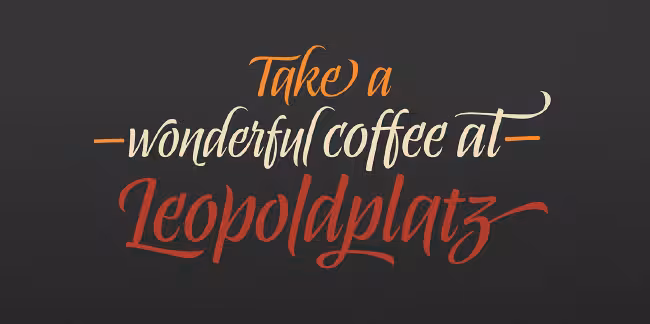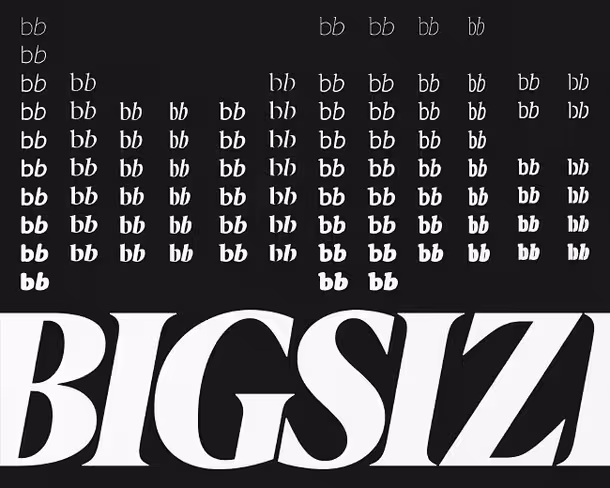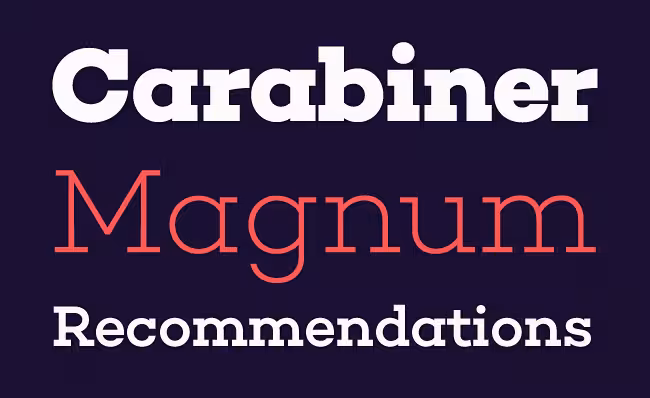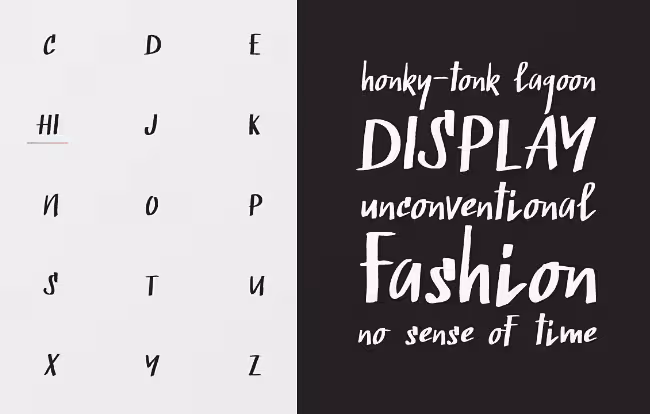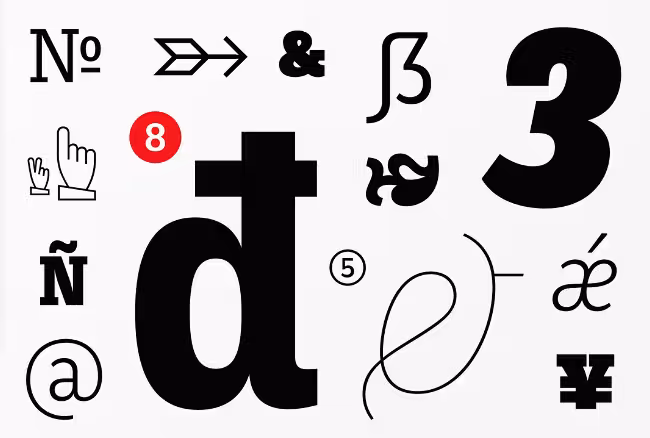
The most beautiful typefaces from June 2014
As another month comes to an end, here’s a look back at all the beautiful typefaces released during the month of June. Check them out below!
Rene Bieder: Choplin
Choplin is a modern and clear geometric slab serif with a sturdy heart.
TipoType: Libertad
Libertad is a sans serif that mixes humanist and grotesk models.
Webalys: Streamline Icons
Streamline Icons have been designed on a precise grid, to guarantee consistency and crisp display.
Mika Melvas: Sanelma
Sanelma is a brush script inspired by hot rod lettering and sign painting.
Nikola Giacintova: Rukola
Rukola is a friendly brush script that follows in the footsteps of sign painting.
Avondale Type Co: ATC Timberline
ATC Timberline is a wide display font, evoking the high class side of speed and mechanics.
Sudtipos: Abelina
Abelina can be used in display sizes for titles where part of the central premise is to emulate certain features of gestural handwriting.
Hoefler & Co: Nitro & Turbo
Nitro is an aggressively sloped italic of massive weight – with an equal and opposite form, a back-slanted style called Turbo.
Kyle Wayne Benson: Good News Sans
Good News Sans consists of 18 fonts with six weights and three widths to complement any of your printing needs.
Petra Docekalova: Monolina
Monolina is a contemporary monolinear script that is based on the contrast between classical calligraphy and quickly jotted manuscript.
Playtype: Berlingske
Sleek and impressively consistent design lies in every single letter.
The Northern Block: Finlek
Finlek is a handmade typeface with subtle script characteristics.
Monotype: Quire Sans
Quire Sans is highly functional and sexy at the same time.
House Industries: Yorklyn Stencil
Robust curves and deceptively delicate breaks.
FontFont: FF Franziska
FF Franziska – discreet, functional and modern, but with real personality.
Matthew Butterick: Triplicate
A monospaced family with true italics, small caps and other geekery.
Hamilton Wood Type: HWT Artz
HWT Artz was designed by venerable type designer Erik Spiekermann.
Type Me Fonts: Muriza
Muriza combines well working normalcy with refreshing uniqueness.
Insigne: Ainslie Sans
Ainslie Sans showcases distinct geometric design and style.
Ludwig Type: Riga
Riga is clear and practical, yet warm and polite.